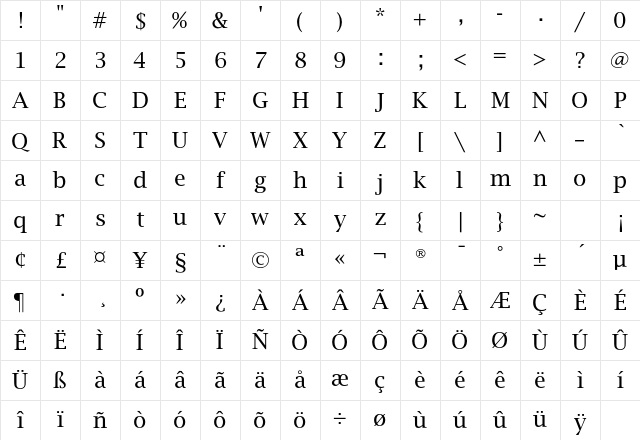
LucidaBrightEF Roman
LucidaBrightEF Family
LucidaBrightEF Roman
Complete LucidaBrightEF Roman glyph index. Displaying only characters natively supported by LucidaBrightEF Roman font.
Design Context for LucidaBrightEF
LucidaBrightEF is a composed and adaptable typeface that performs quietly and consistently across a wide range of design contexts.